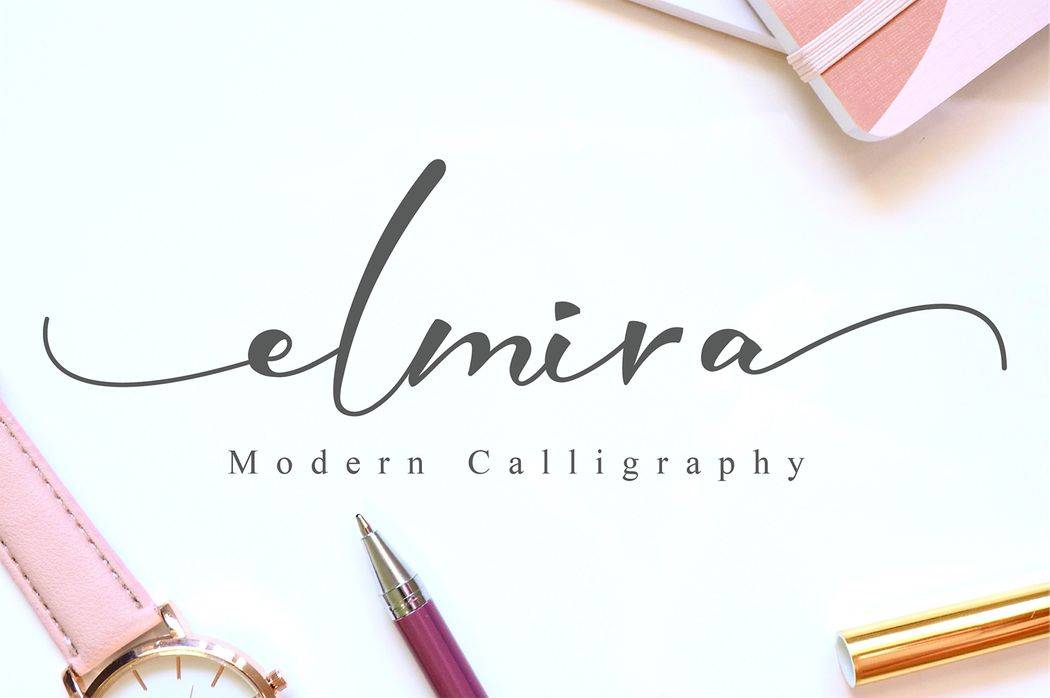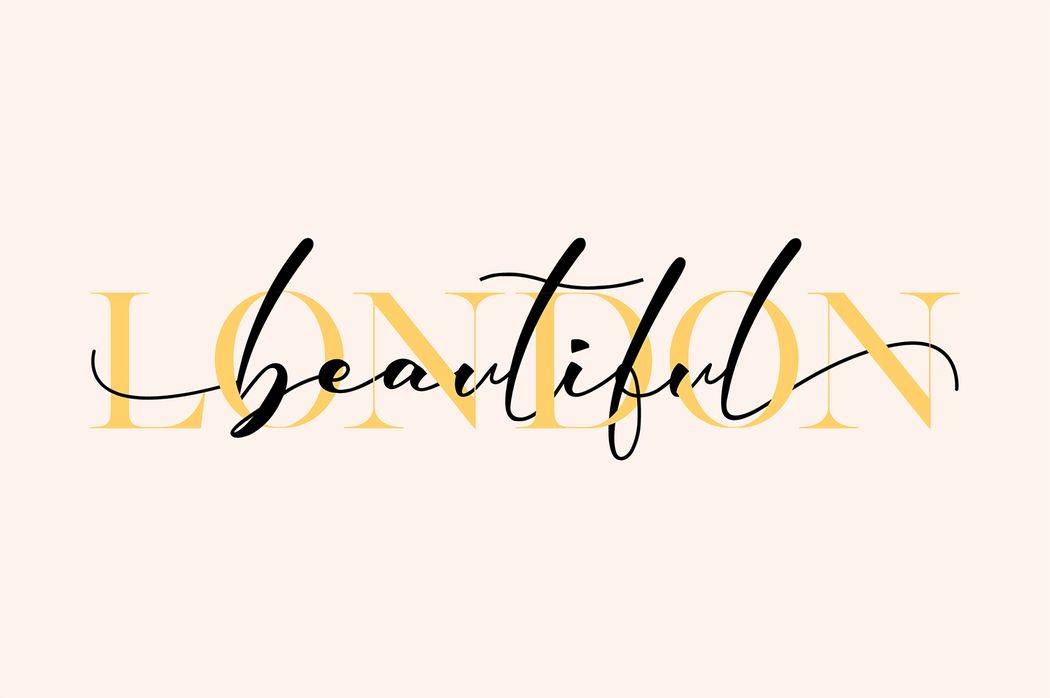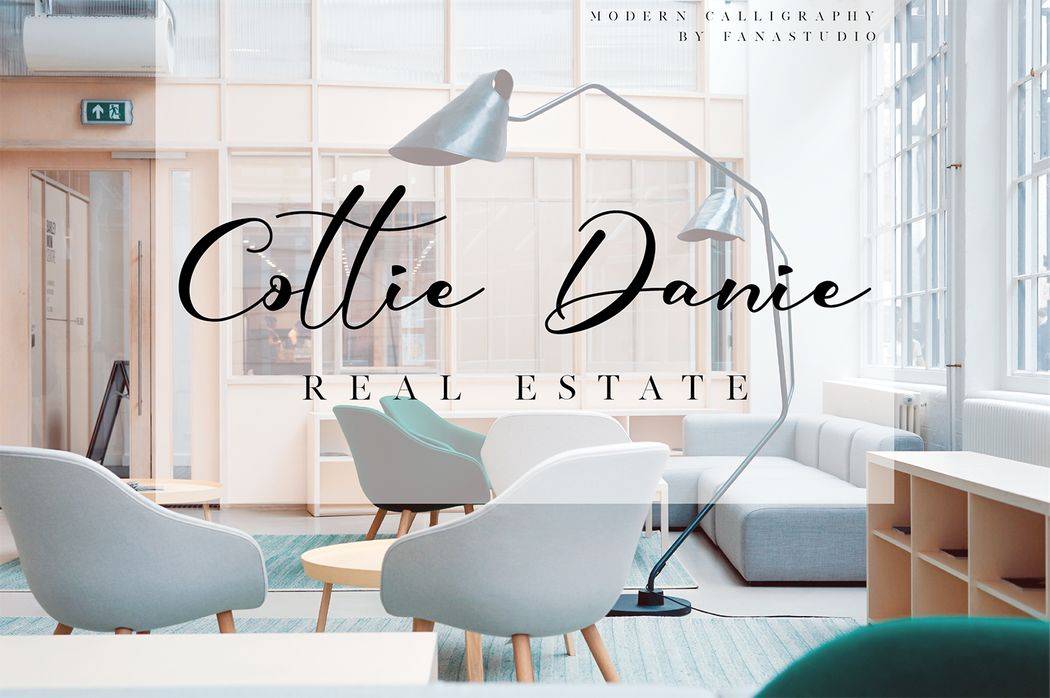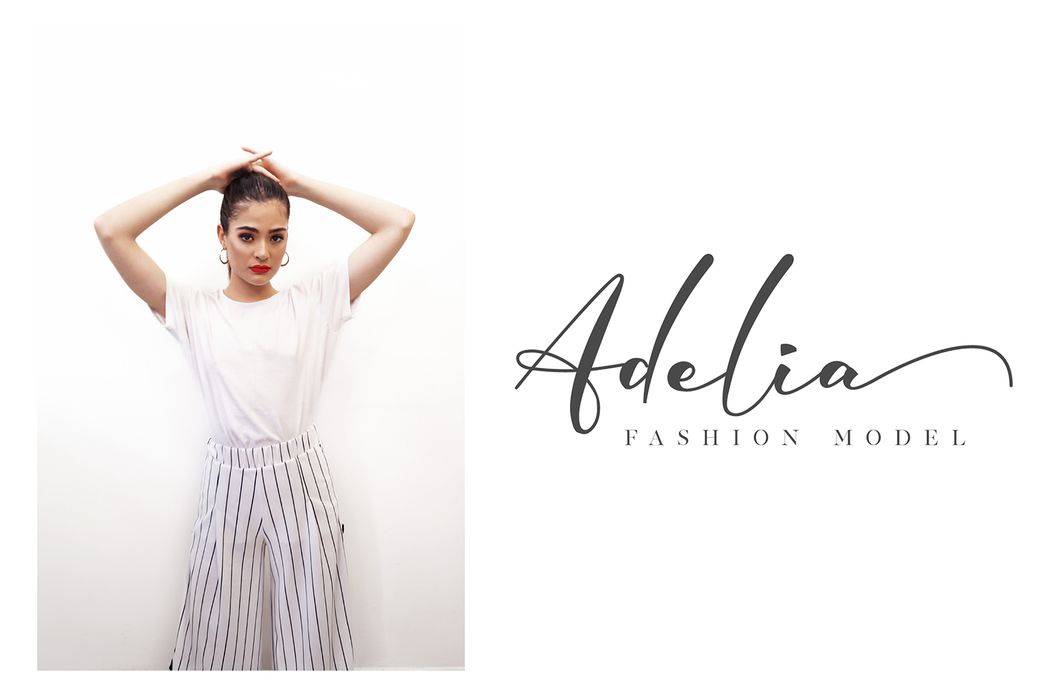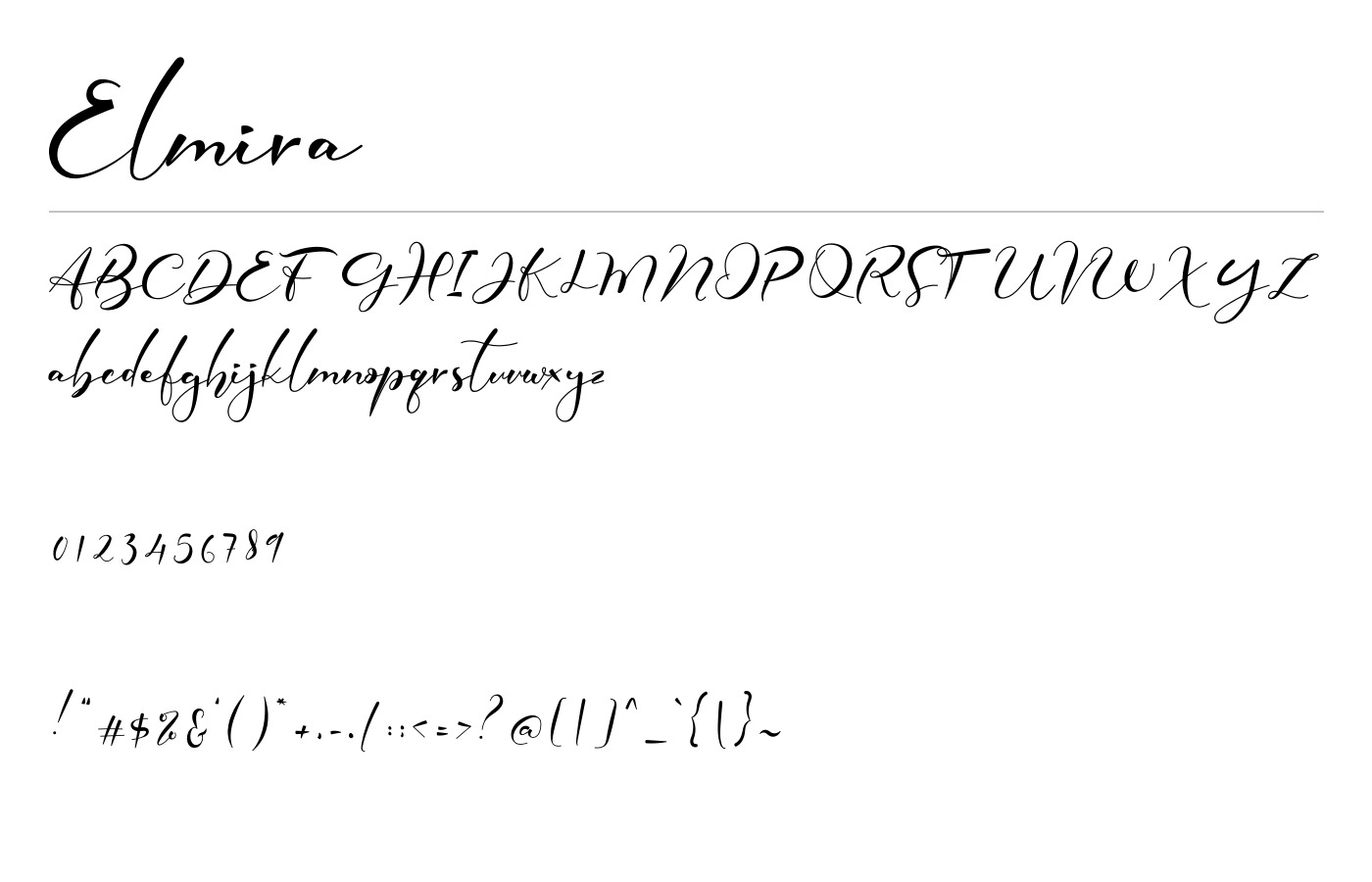
Elmira Script is an elegant and flowing handwritten script font with a delicate, calligraphic touch. Its smooth, varied stroke weights and graceful letterforms create a refined, sophisticated feel that works well for invitations, branding, and stylish editorial projects. This font’s natural rhythm and charm make it a perfect choice for designs that seek to convey warmth, creativity, and elegance.
Elmira Script Font
About Elmira Script Font
| Font family | Elmira Script Font |
| Designer | Nisa Nana |
| Trademark | Nissa Studio 2018 |